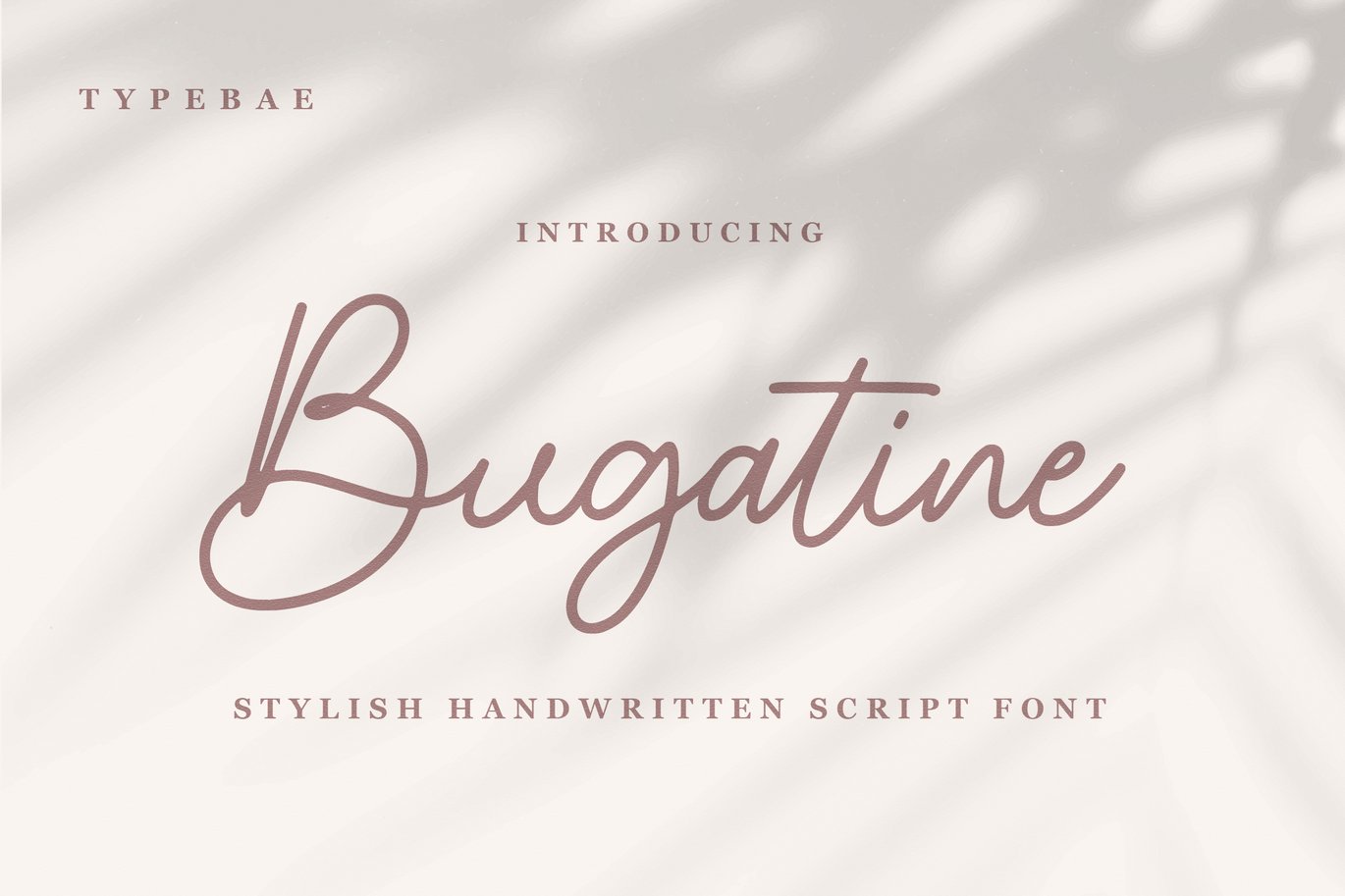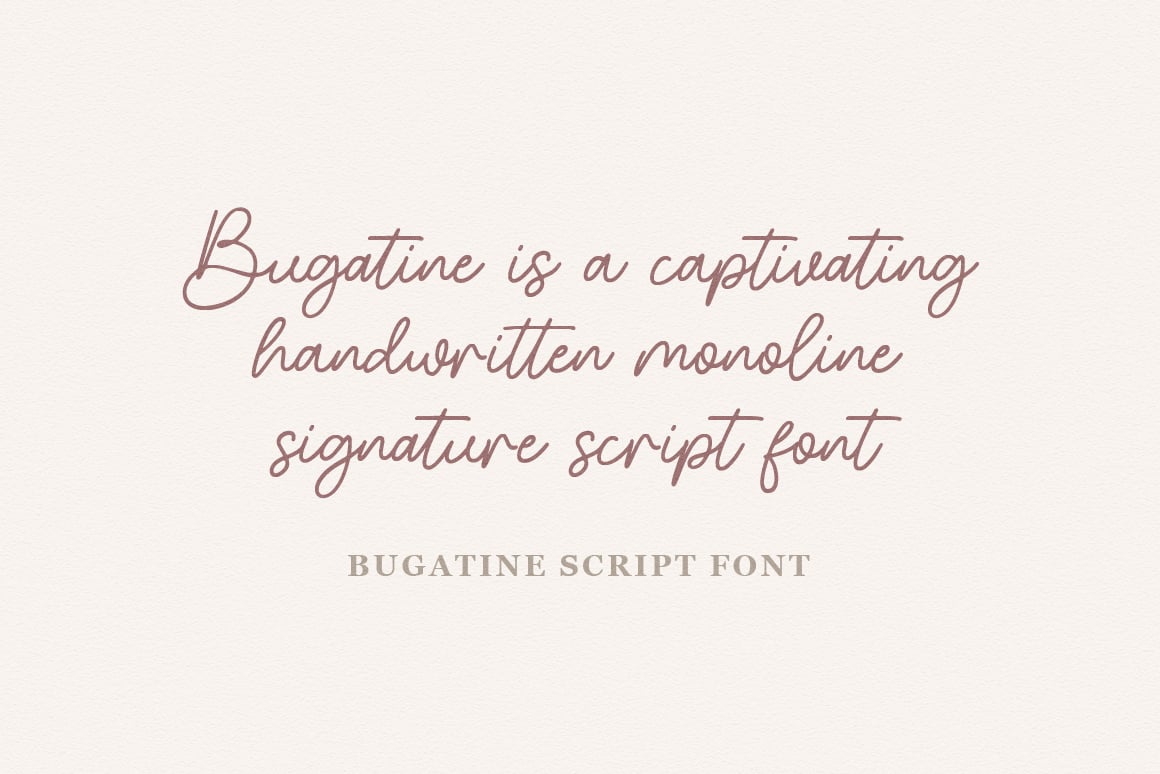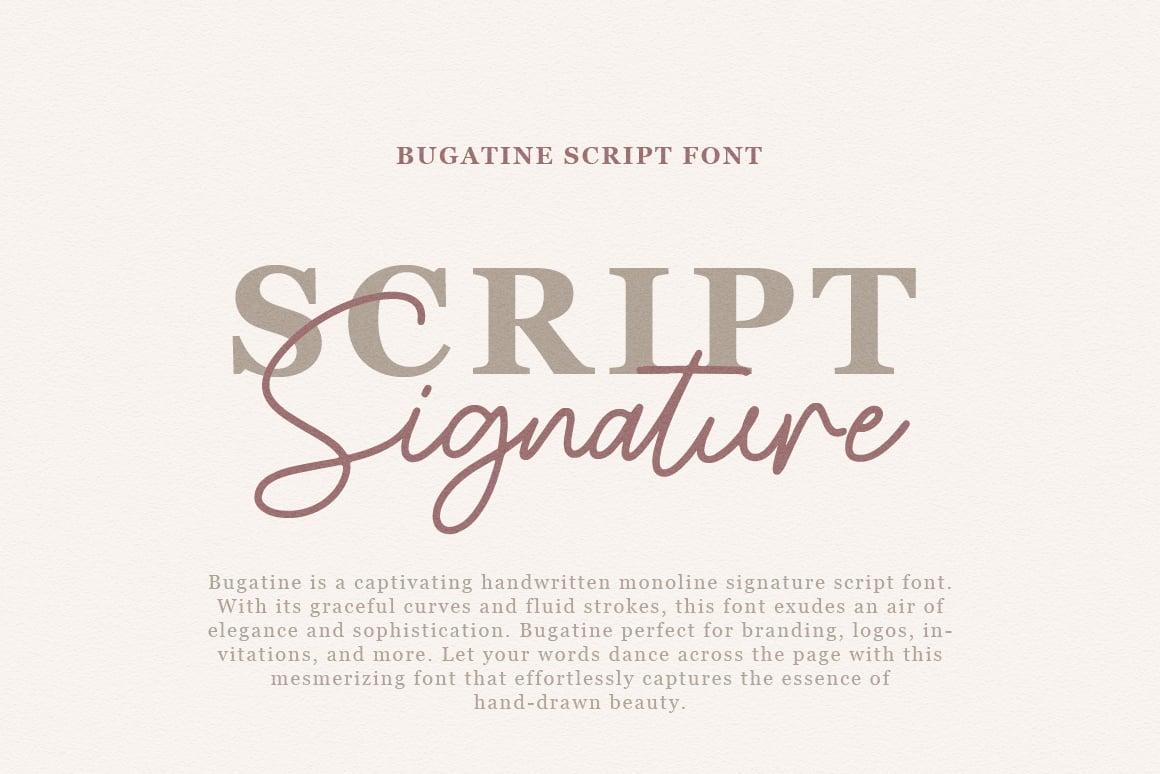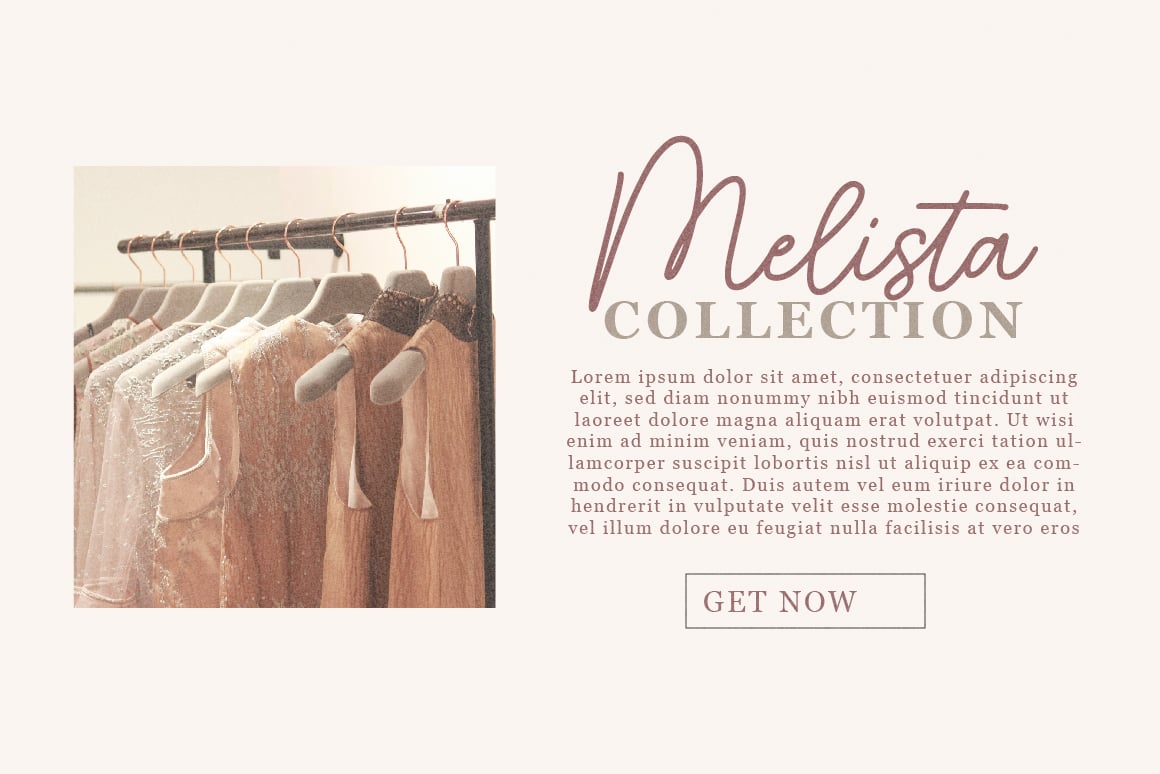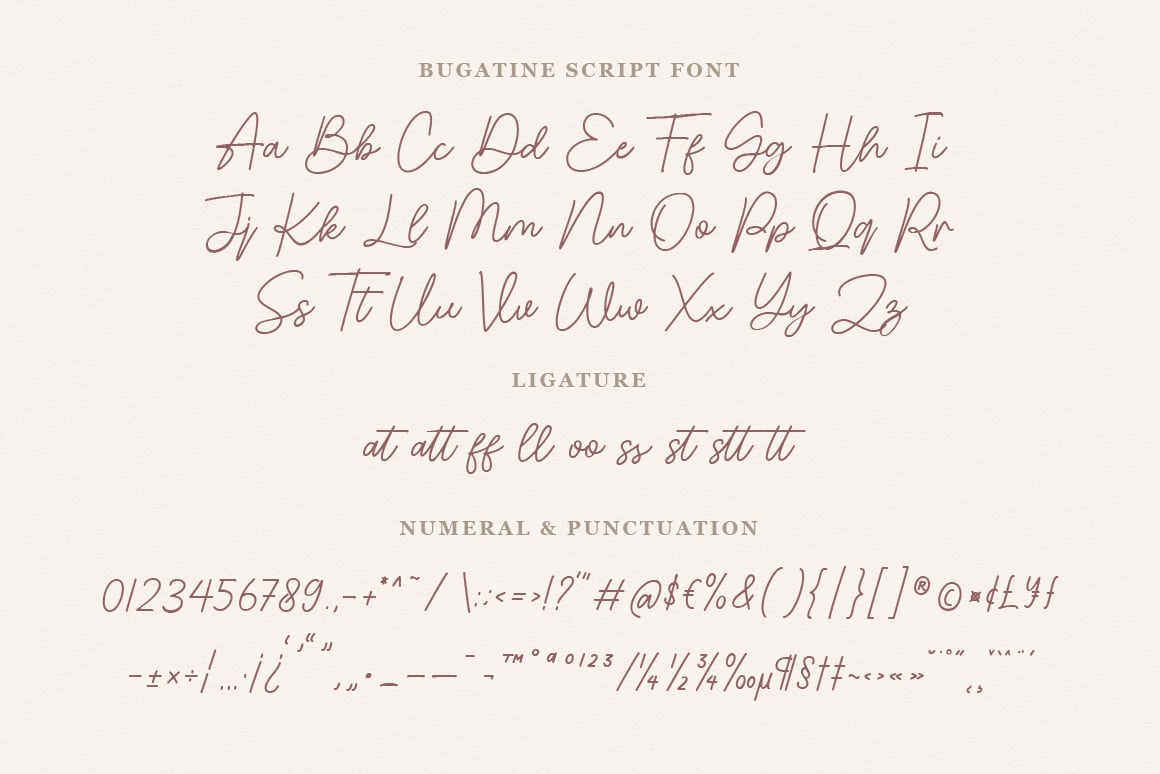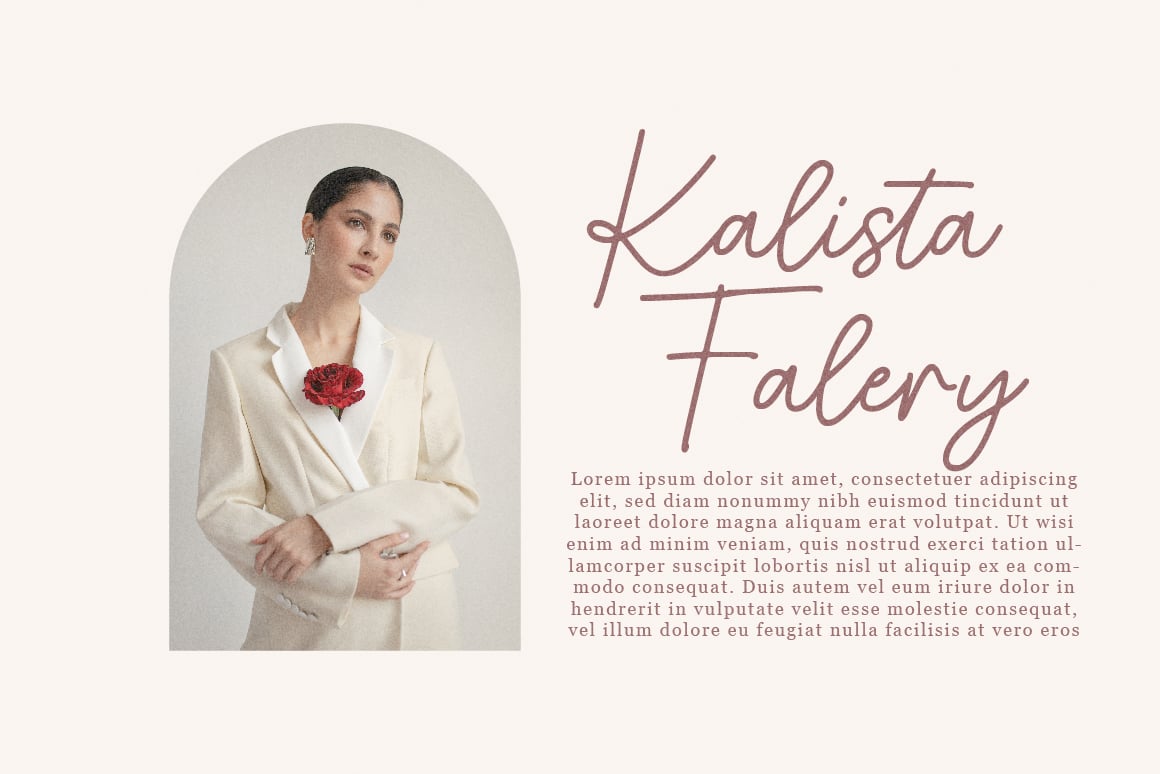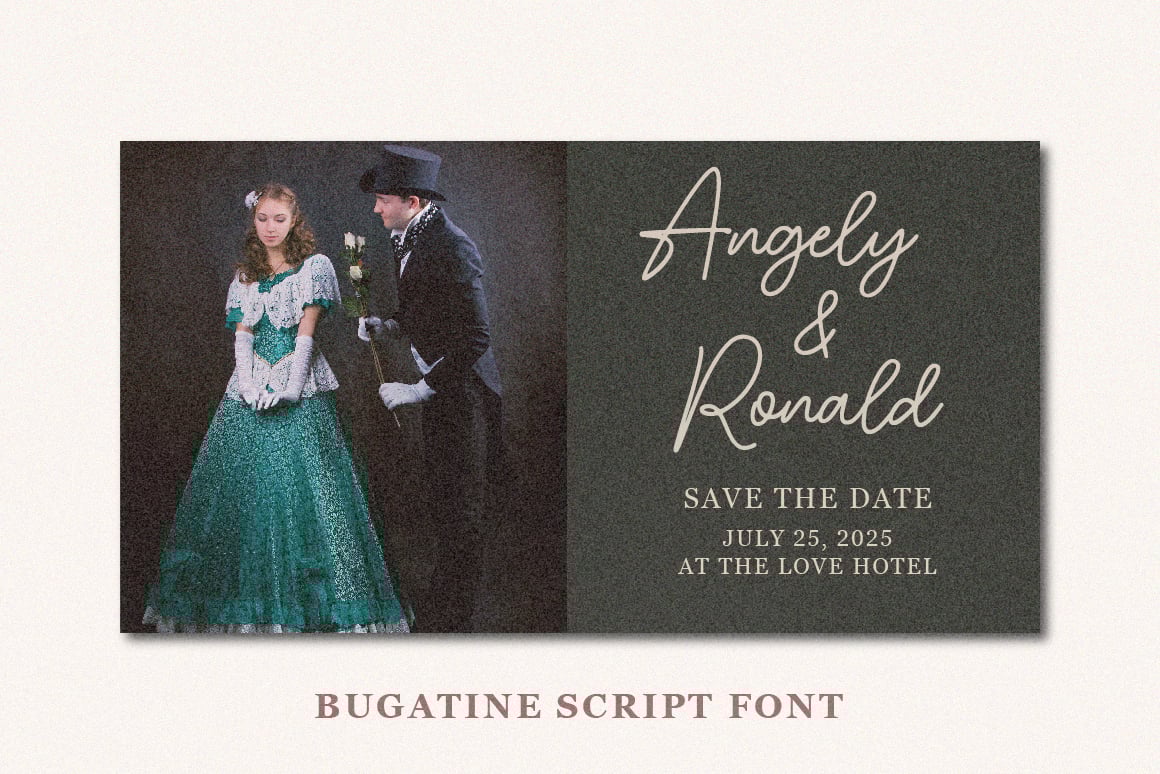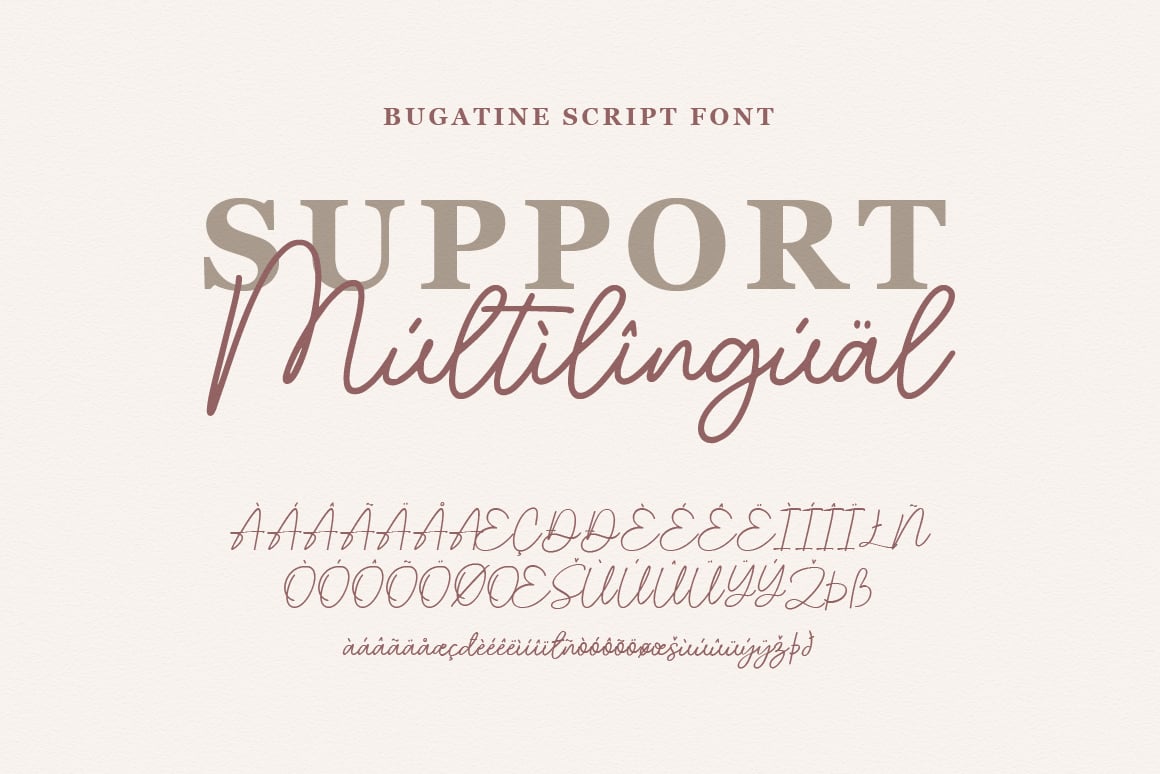
Bugatine Handwritten Script Font
Bugatine is a captivating handwritten monoline signature script font. With its graceful curves and fluid strokes, this font exudes an air of elegance and sophistication. Bugatine perfect for branding, logos, invitations, and more. Let your words dance across the page with this mesmerizing font that effortlessly captures the essence of hand-drawn beauty.
*Ligature feature
*Multilingual Support: Afrikaans, Basque, Breton, Catalan, Danish, Dutch, English, Finnish, French, Gaelic (Irish, Scots), German, Icelandic, Indonesian, Irish, Italian, Norwegian, Portuguese, Saami (Southern), Spanish, Swahili, Swedish.